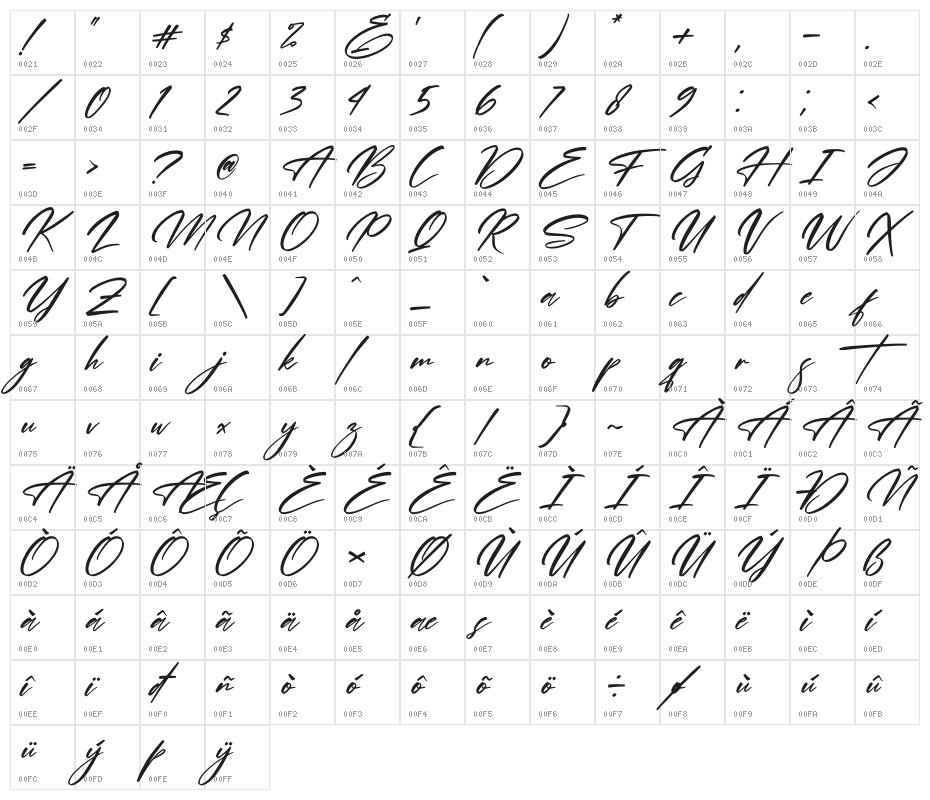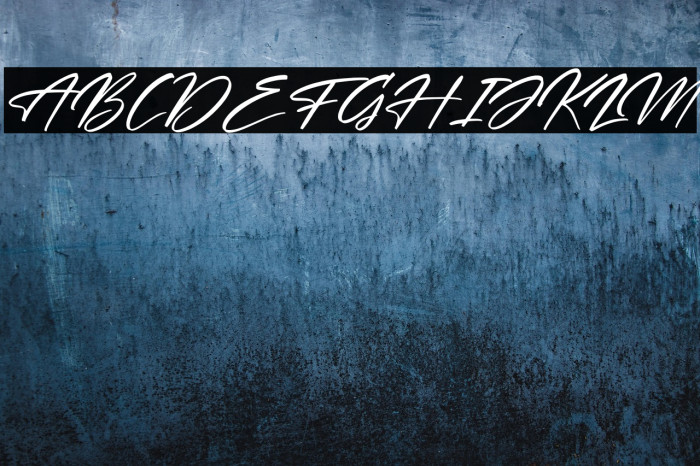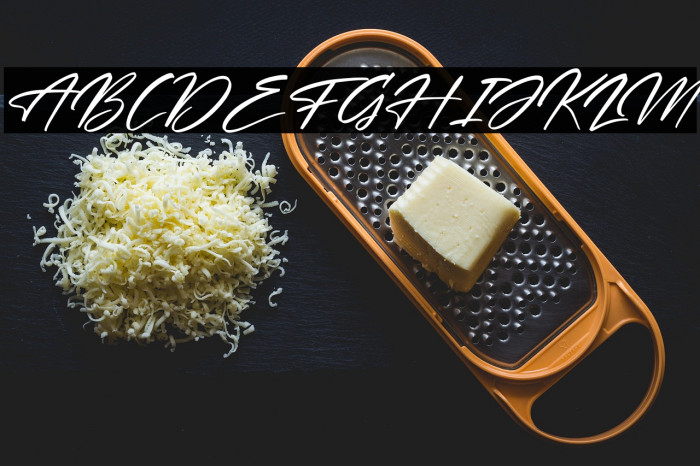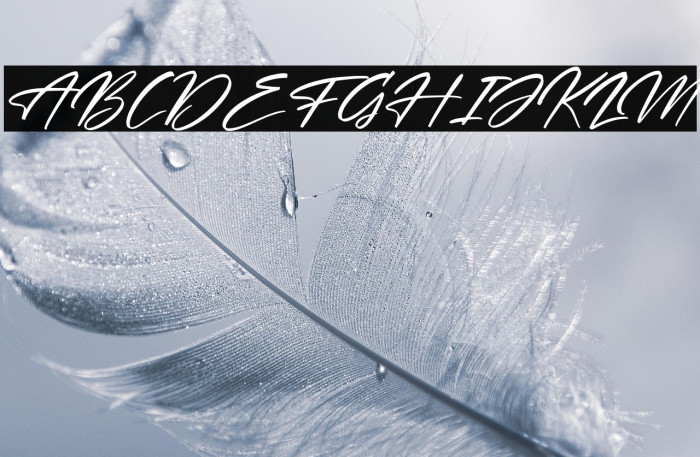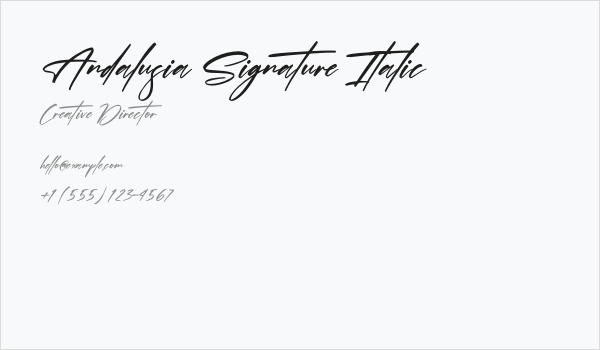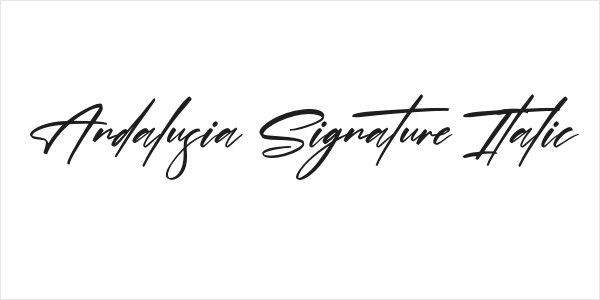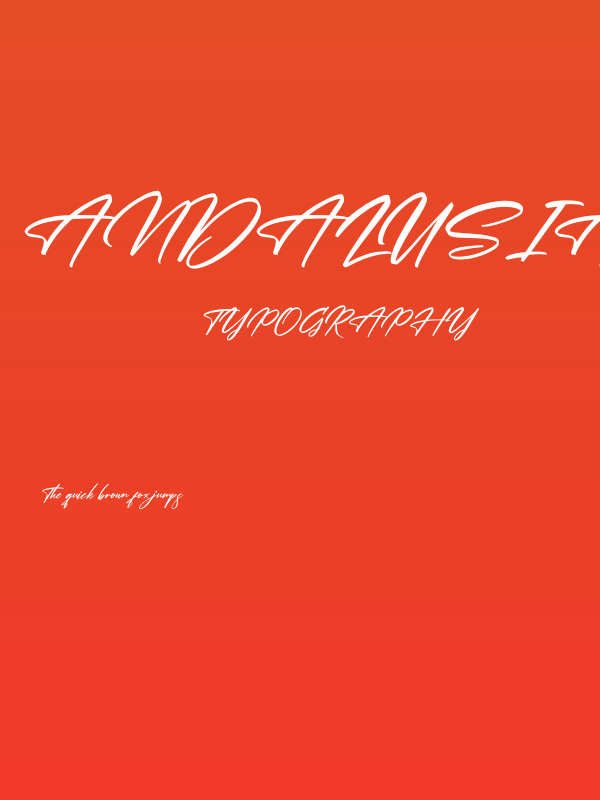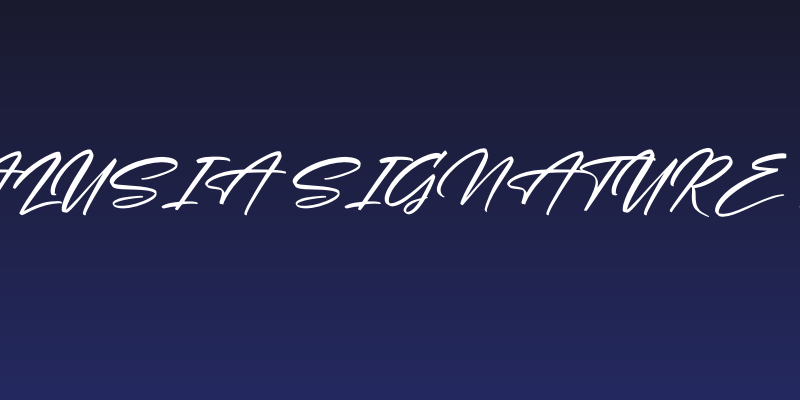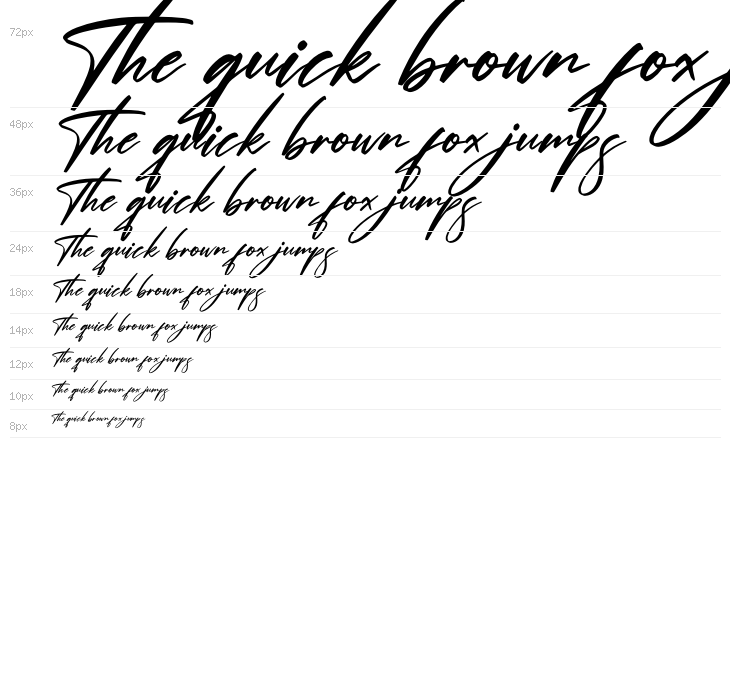
Andalusia Signature Italic Font
Andalusia Signature Italic Description
This font exudes a sophisticated and elegant style, characterized by its flowing, cursive script. The letters are connected in a fluid manner, giving it a handwritten appearance that is both stylish and personal. The uppercase letters are slightly more formal, with graceful loops and curves, while the lowercase letters maintain a consistent slant, enhancing the overall fluidity. The numbers and special characters are designed to match the script's elegance, ensuring uniformity across all characters. This font is perfect for projects that require a touch of class and personality.
| Proposed Projects | Ideal for wedding invitations, personal branding, elegant logos, and greeting cards. |